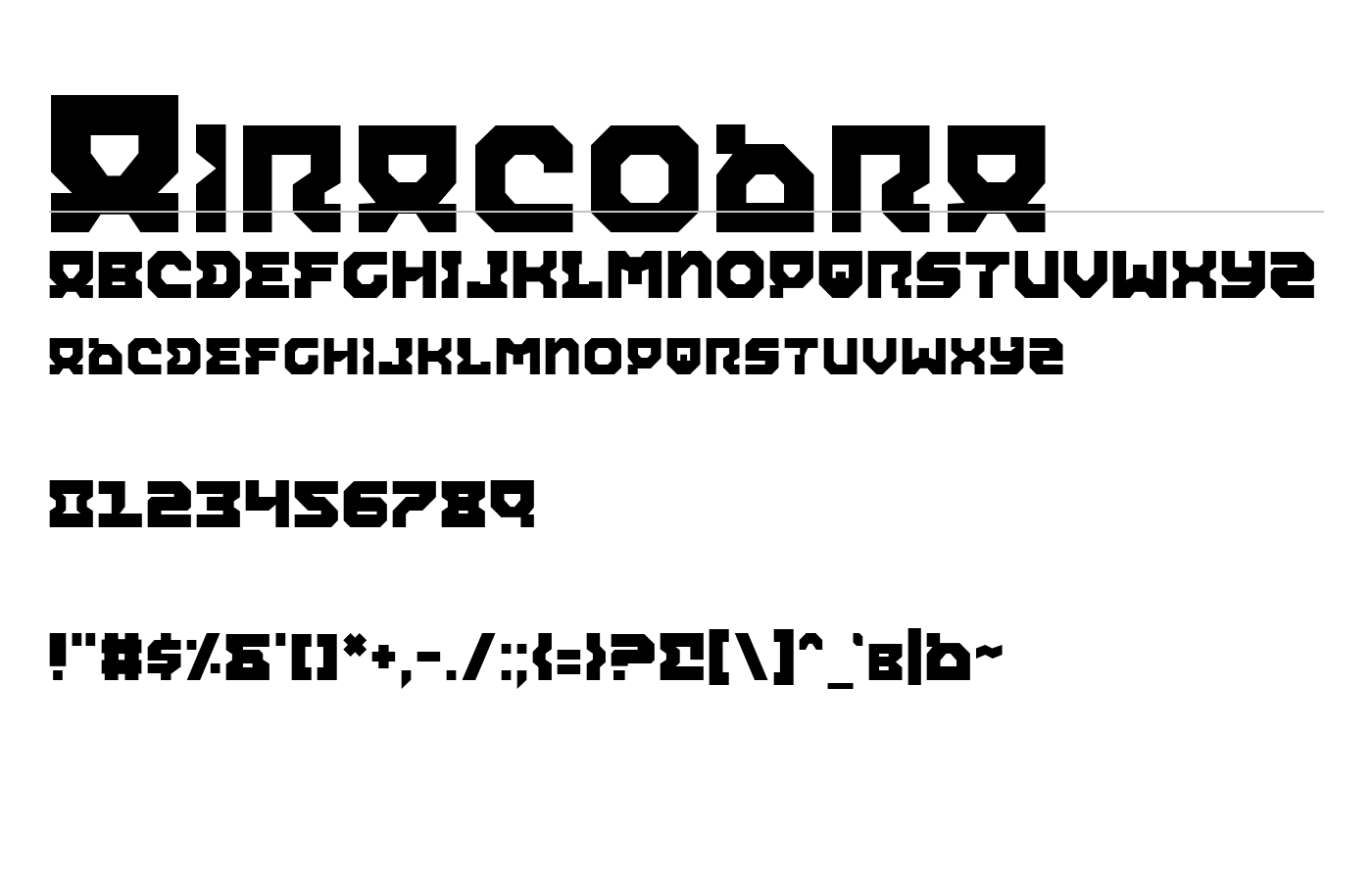
Airacobra is a bold, geometric sans serif font with a strong, blocky appearance that feels modern and industrial. Its sharply angled corners and thick strokes give it a sturdy, technical vibe, making it ideal for futuristic or tech-oriented branding, headlines, and display purposes where a powerful, eye-catching style is needed. This font works best in contexts that require impact and clarity rather than long text, such as logos, posters, and digital interfaces.
Airacobra Font